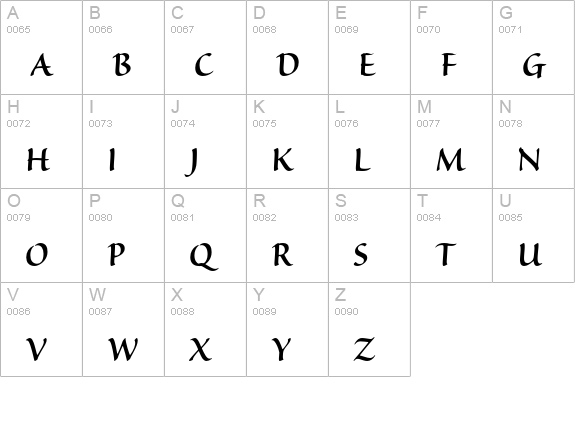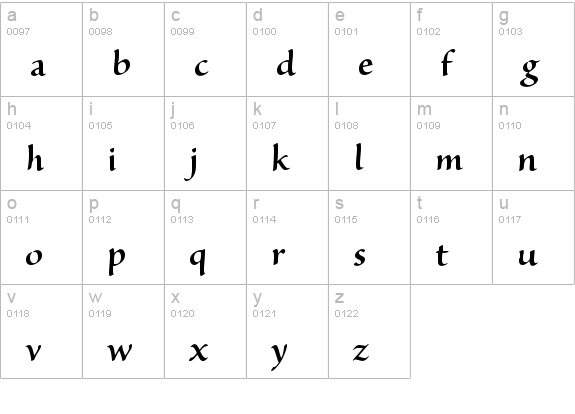
Sanvito Pro Semibold Subhead is a sub-bold, structured variant in the Sanvito typeface family \xE2\x80\x94 well suited to sub-headlines and emphasised passages.
Sanvito Pro Semibold Subhead is a stunning font that exudes a sense of elegance and sophistication. Its bold and prominent strokes make it perfect for subheadings and titles, adding a touch of grandeur to any design project. This font boasts impeccable clarity and readability, ensuring that your message is conveyed effectively to your audience. The semi-bold weight strikes the perfect balance between boldness and subtlety, making it versatile and suitable for a wide range of applications. Sanvito Pro Semibold Subhead stands out with its refined and timeless style. It is meticulously crafted with precision and attention to detail, resulting in a typeface that is not only visually captivating but also highly legible. One of the best features of Sanvito Pro Semibold Subhead is that it is freely available to download at FontsMarket.com. This means that you can easily access and use this fantastic font for your personal or commercial projects without any hassle. Whether you are designing a magazine, creating branding materials, or working on a website, Sanvito Pro Semibold Subhead will elevate your design to a whole new level. Its versatility and striking appearance make it a valuable asset in any creative endeavor. Experience the beauty and sophistication of Sanvito Pro Semibold Subhead today by downloading it for free at FontsMarket.com. Embrace the elegance and make a bold statement with this exceptional font that will undoubtedly leave a lasting impression on your audience.